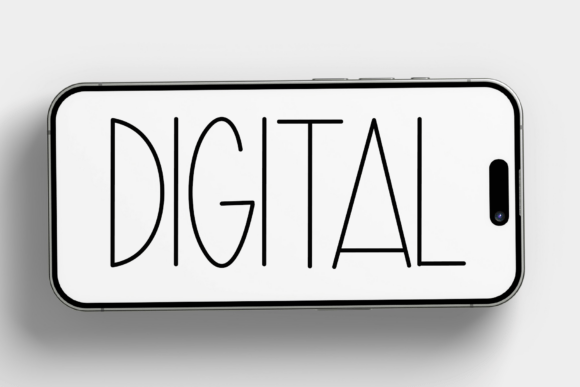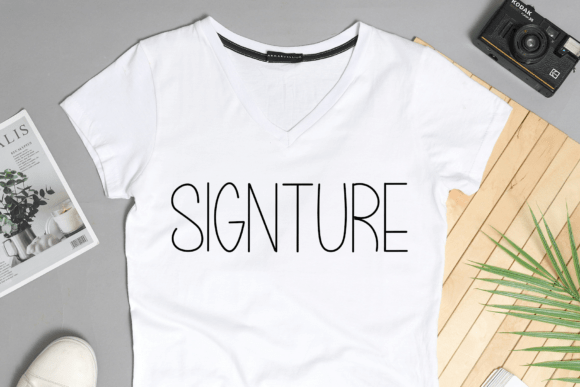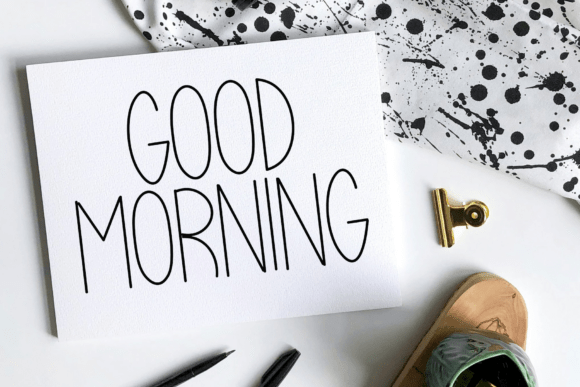
Introduction to Perfect Together Font
Have you ever been brainstorming a creative project, and suddenly, the perfect font pops into your head, bringing the entire concept to life? For many designers, this moment of inspiration is what drives their passion for typography. It’s a feeling that can elevate a simple design into a masterpiece. One such font that embodies this magic is the Perfect Together Font.
This festive and merry typeface is specifically designed to capture the spirit of the holiday season, making it a valuable resource for designers looking to create high-quality, festive designs. With its decorative elements and whimsical flair, the Perfect Together Font adds a touch of enchantment to any project, whether it’s a greeting card, gift tag, or holiday-themed design. And the best part? It’s free to download, making it an accessible design resource for creatives of all levels.
Key Features of Perfect Together Font
- High-quality font design with a unique, modern aesthetic, perfect for creative projects.
- Perfect Together Font is designed to work well in various design contexts, from digital interfaces to print materials.
Honest Review: Perfect Together Font
I recently stumbled upon the Perfect Together Font, and I’m excited to share my thoughts on this design resource. I’ve been experimenting with it for my latest creative project, and I must say it’s been a game-changer. The font’s unique blend of elegance and playfulness has added a touch of sophistication to my design.
- ✨ High-quality typography: The Perfect Together Font is incredibly crisp and clear, making it perfect for any design project.
- ✨ Versatility: This font can be used for a wide range of creative projects, from logos to brochures, and even digital displays.
- ⚠️ Limited font styles: While the font itself is beautiful, it’s only available in a few styles, which may limit its versatility for some designers.
- ⚠️ No transparent background: The font’s transparent background can be a bit tricky to work with, especially for designers who prefer a seamless integration with their design elements.
Overall, I’m thoroughly impressed with the Perfect Together Font. Its unique design, high-quality typography, and free download make it an excellent addition to any designer’s toolkit. While it may have some limitations, I believe it’s well worth exploring for your next creative project.
The Perfect Together Font is a versatile design resource that can be used for a variety of creative projects, including:
– Social media graphics
– Blog post headers
– Infographics
– Branding materials
Tips for Getting the Most Out of the Perfect Together Font
For a transparent background, use the font in combination with a transparent image or shape. Experiment with different font sizes and colors to create a visually appealing design.